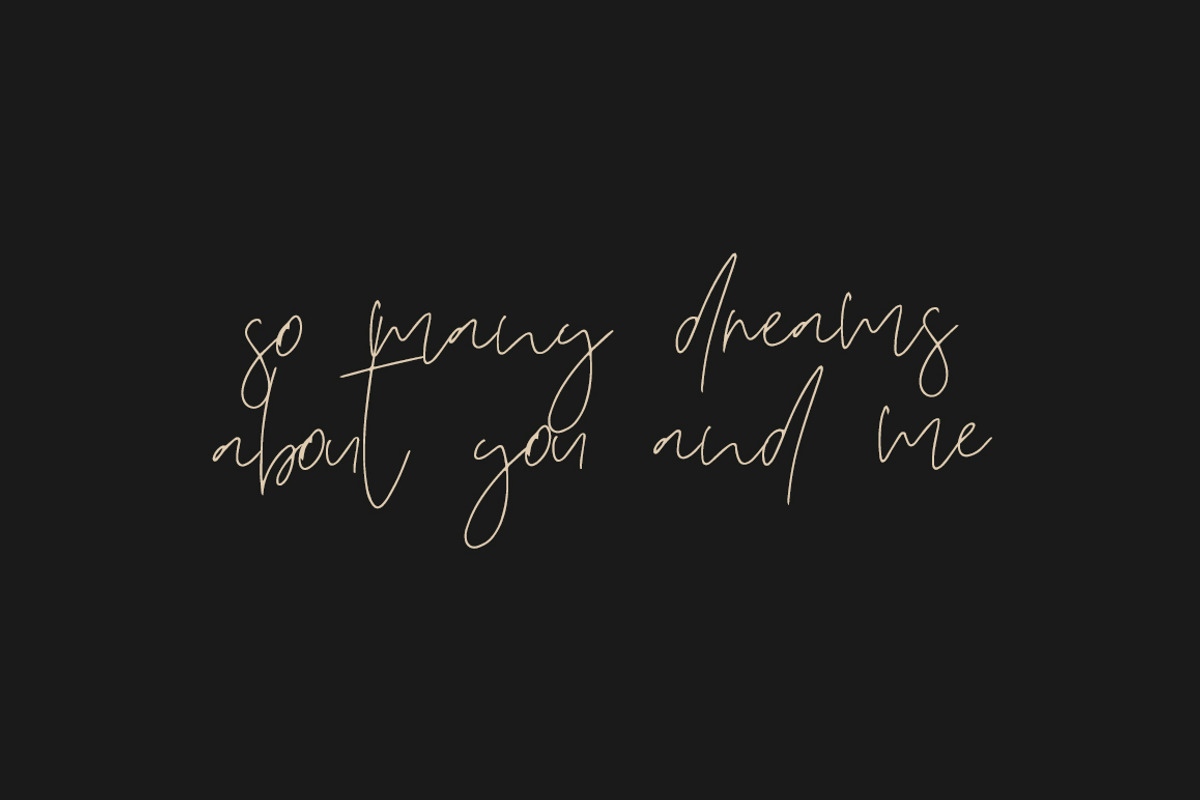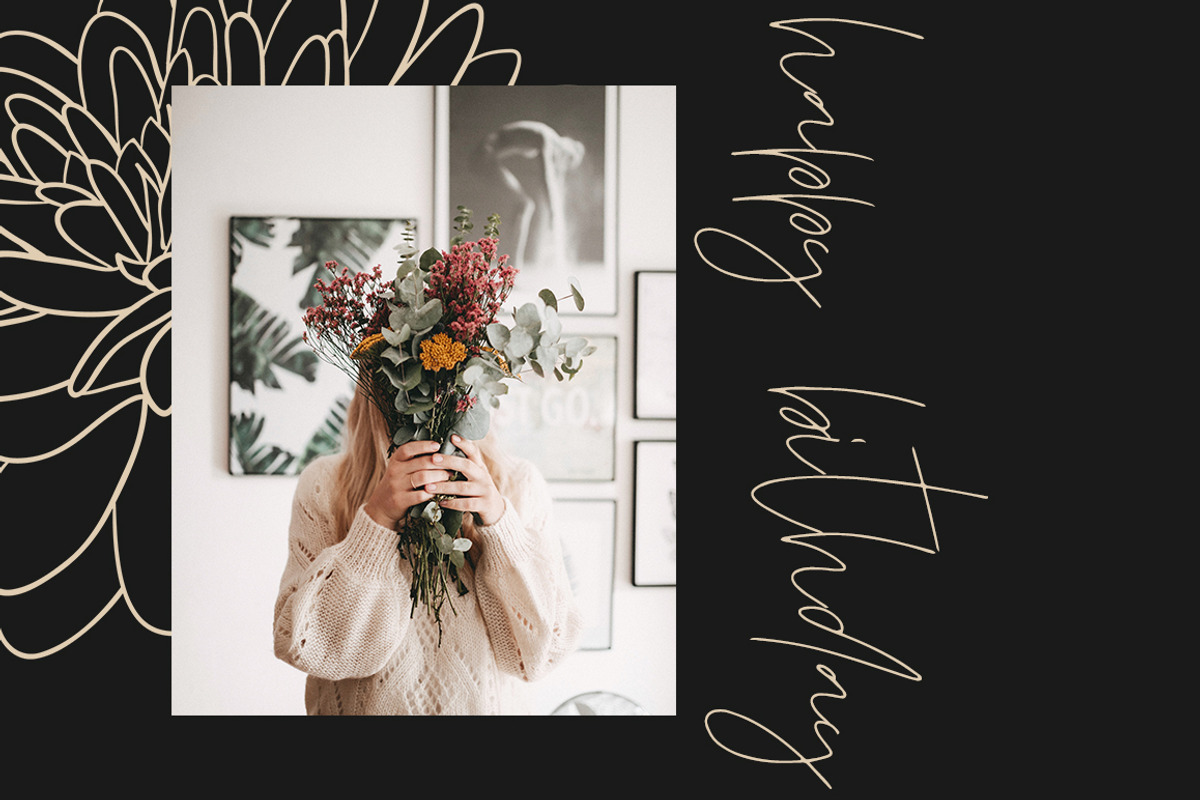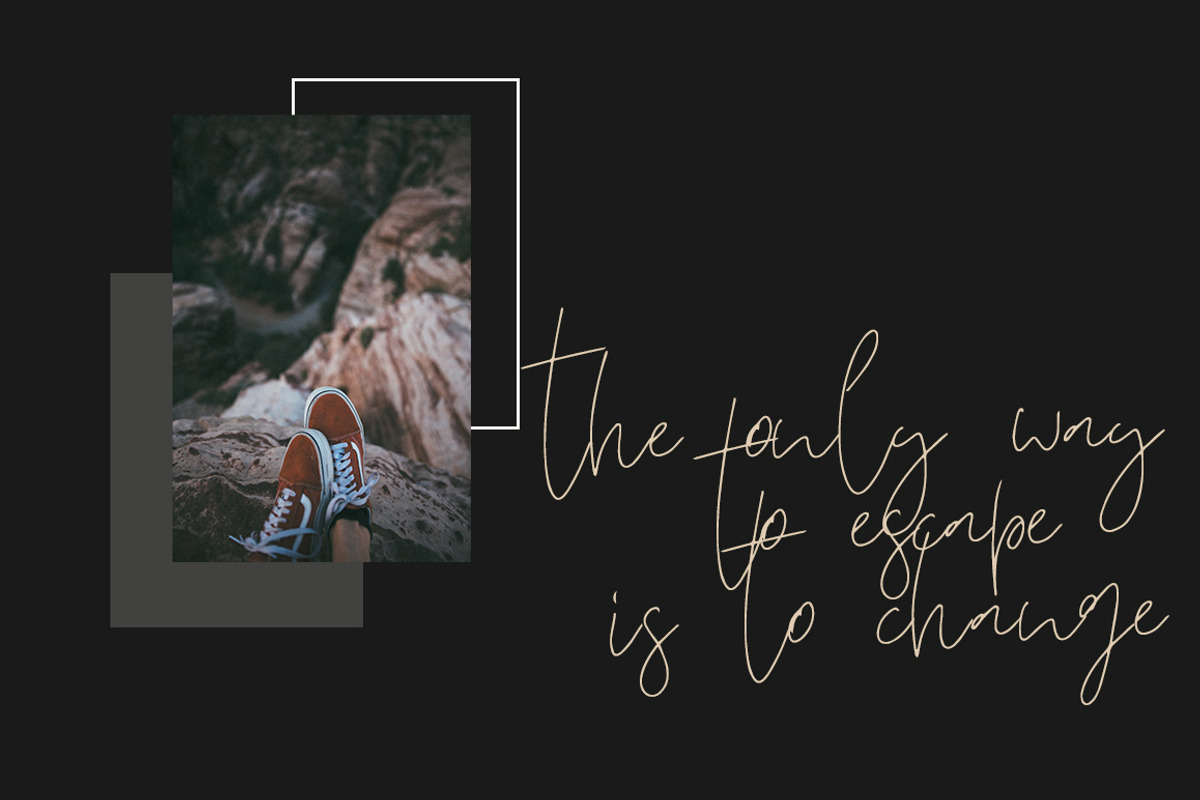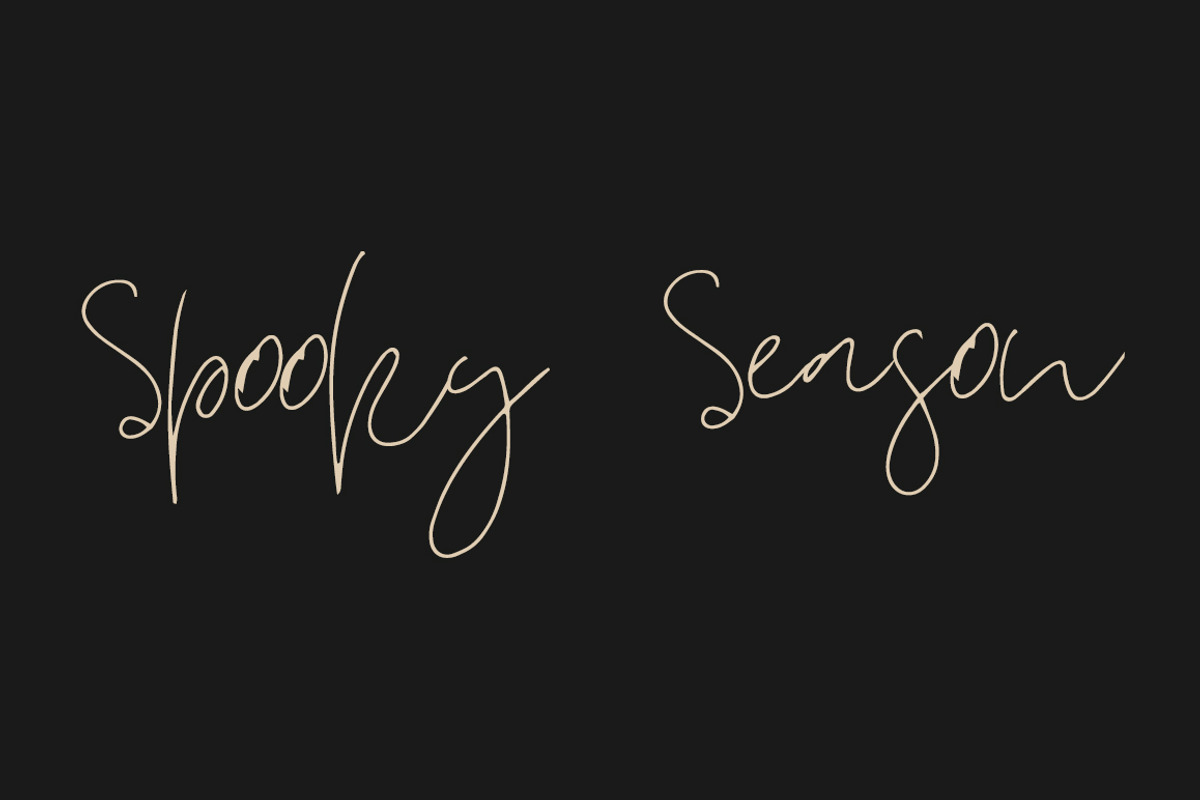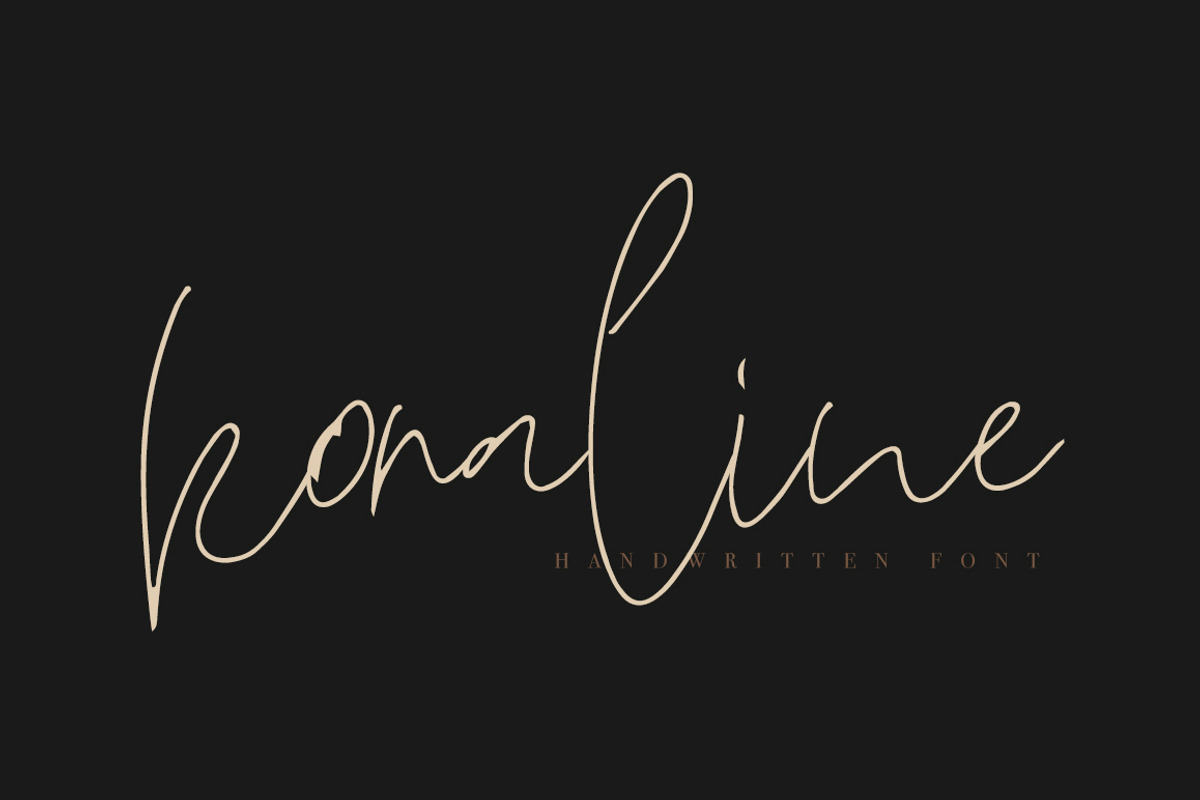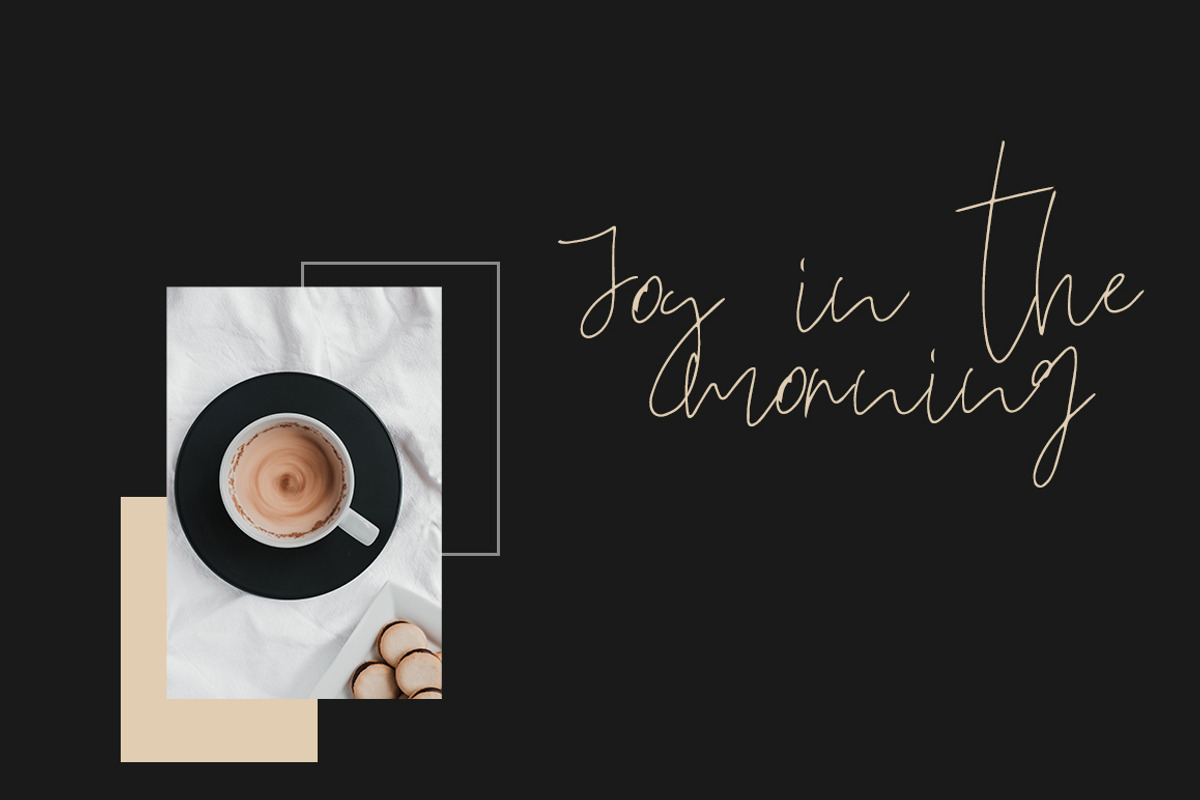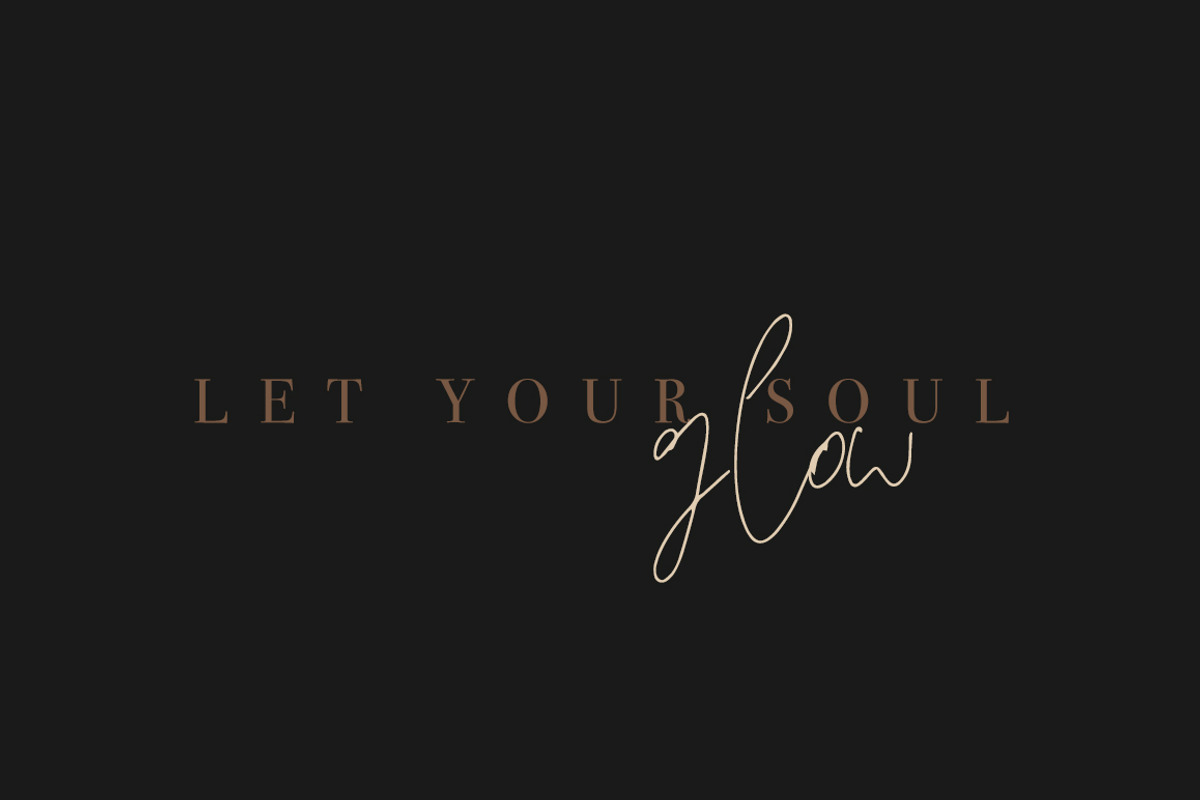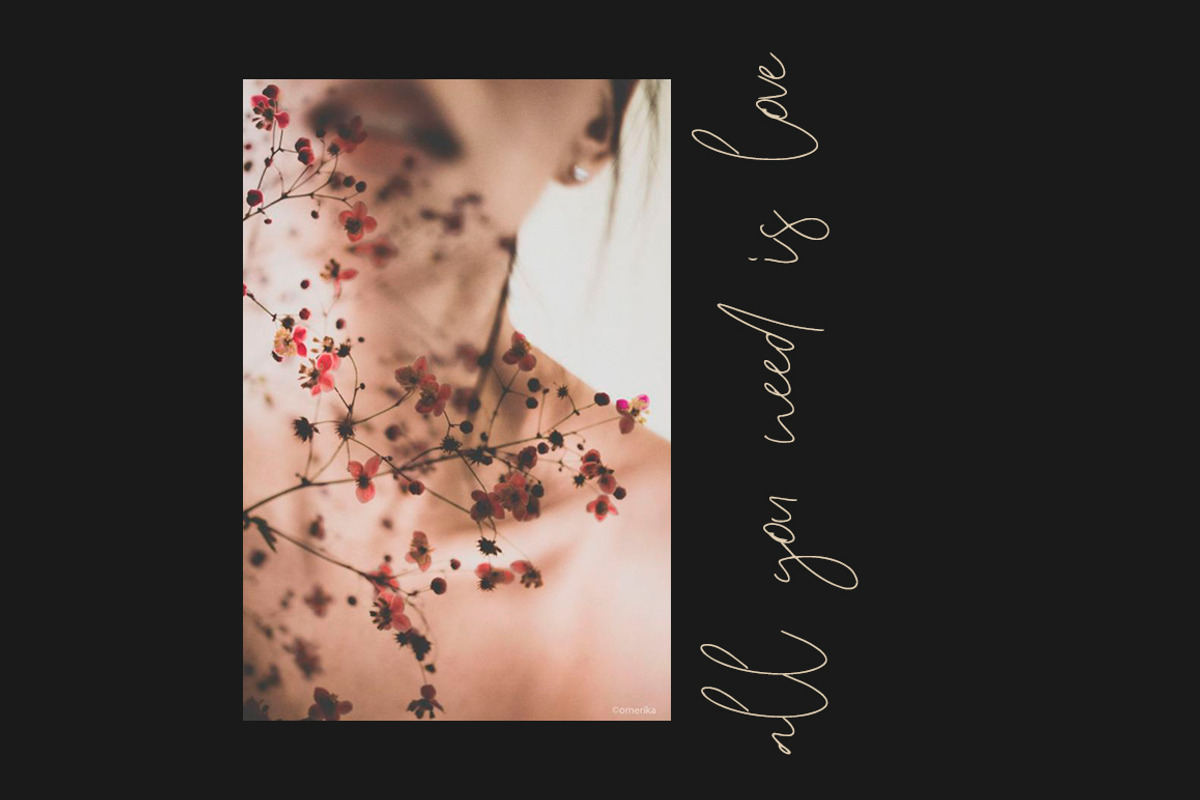
Koraline
Koraline is sweet and playful, but also Crafty. This versatile script font has a wide range of applications ranging from greeting cards to kids’ crafts, and is guaranteed to add a sweet touch to your next design. With modern style this font will perfect for many different project ex: logo, photography, watermark, quotes, blog header, poster, wedding, branding, logo, fashion, apparel, letter, invitation, stationery, etc. The font is super versatile and suitable for any project.